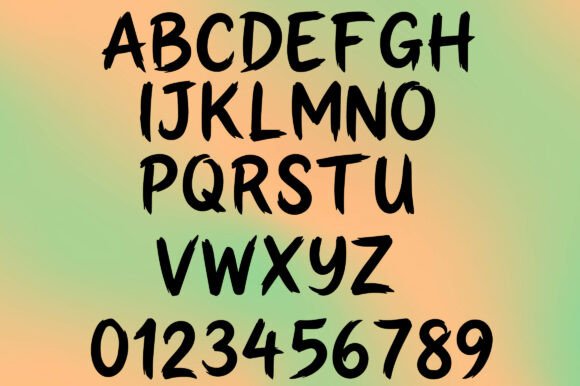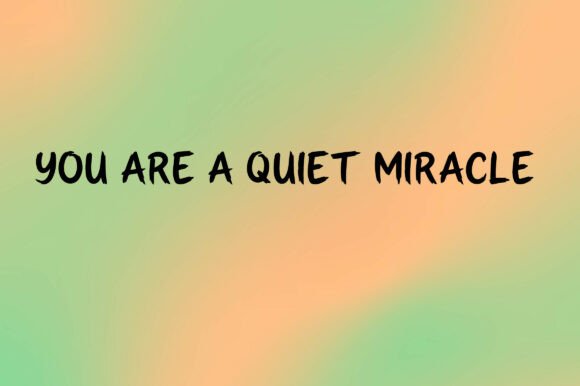
Introduction to Light Returns Font
Have you ever been working on a creative project, pouring your heart and soul into it, only to feel like it’s missing that one element to make it truly pop? For designers, finding the perfect font can be a game-changer. That’s where the Light Returns Font comes in – a raw display font that’s guaranteed to ignite your designs and leave a lasting impression.
With its aggressive, hand-painted letterforms and dry-brush textures, the Light Returns Font captures the rebellious and expressive essence of street art and underground zines. Whether you’re working on an independent streetwear branding project or creating graphics for extreme sports, this font is the perfect choice. Its high-impact silhouette and organic imperfections will add a touch of authenticity to your designs, making them stand out from the crowd.
Key Features of Light Returns Font
- High-quality design resource ideal for creative projects, offering a clean and modern aesthetic.
- Light Returns Font comes with a transparent background, allowing for seamless integration with various design elements.
- Features a unique, modern design with subtle nuances, making it suitable for a wide range of creative projects.
- Designed to be easily scalable, making it suitable for use in various font sizes and applications.
Honest Review: Light Returns Font
As a designer, I’m always on the lookout for high-quality design resources that can elevate my creative projects. The Light Returns Font is one such resource that caught my attention.
What works well with this font is its versatility and legibility. It’s a great choice for titles, headings, and even body text, thanks to its clear and easy-to-read design. The font also comes with a transparent background, making it perfect for overlaying on images or videos. The free download is a bonus, making it an excellent addition to any designer’s toolkit. ✨
- High-quality design with clear and legible letters
- Transparent background for seamless overlays
- Perfect for titles, headings, and body text
However, there are some limitations to consider. The font is relatively simple and may not be suitable for more complex or creative projects. Additionally, the free version may have limitations on commercial use. ⚠️
Overall, I’m impressed with the Light Returns Font. It’s a solid design resource that can add a touch of elegance to any project. With its high-quality design, transparent background, and free download, it’s definitely worth checking out. Just be aware of the potential limitations, and you’ll be good to go!
To get the most out of the Light Returns Font, use it with a transparent background to create a modern and sleek design. You can also experiment with different font sizes and colors to create a visually appealing effect.
The Light Returns Font is ideal for use in creative projects that require a clean and minimalist design. It’s perfect for use in logos, branding materials, and digital graphics. You can also use it in conjunction with other design elements to create a unique and eye-catching visual effect.